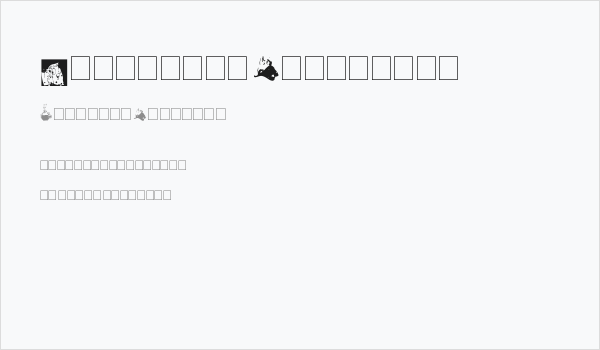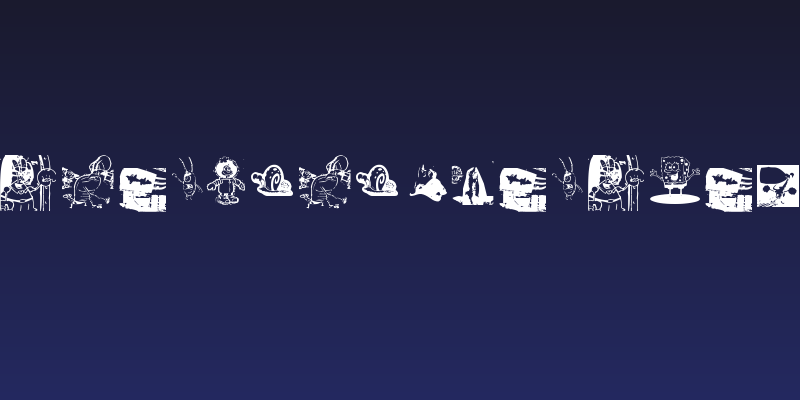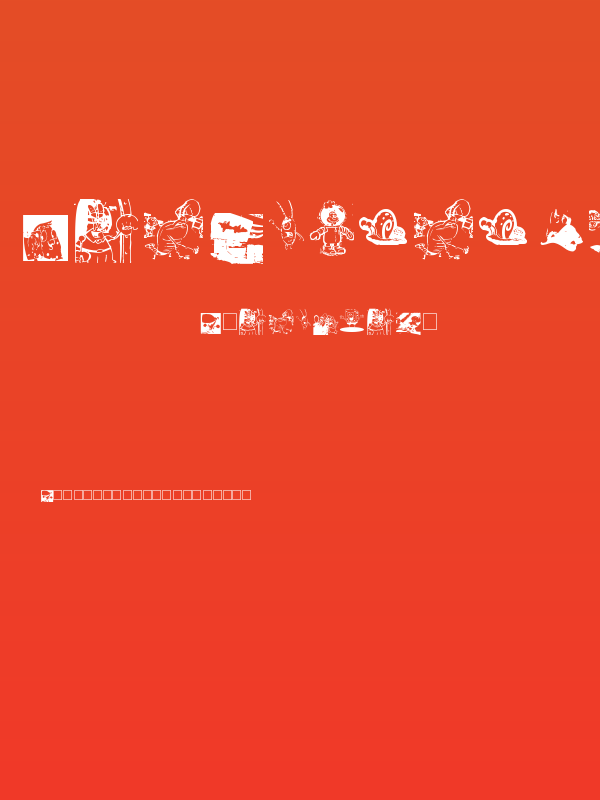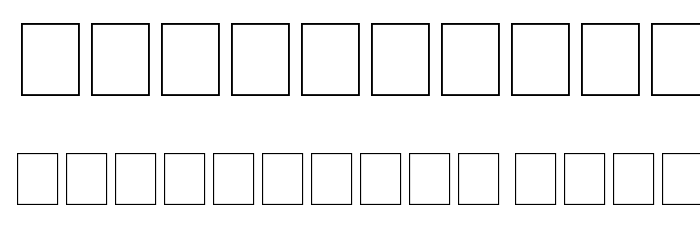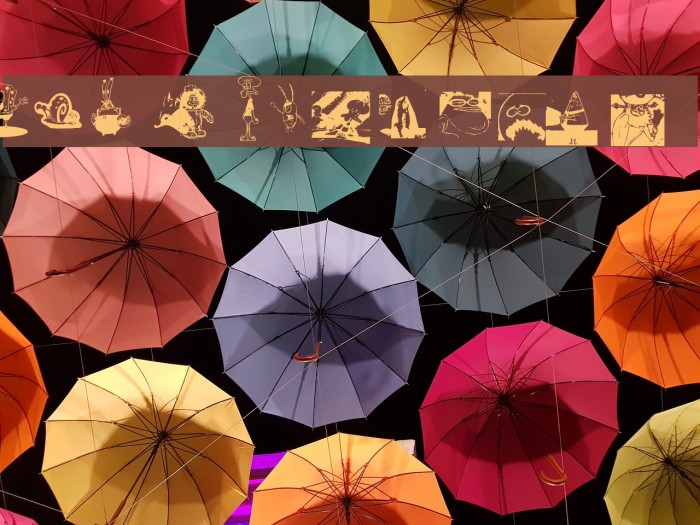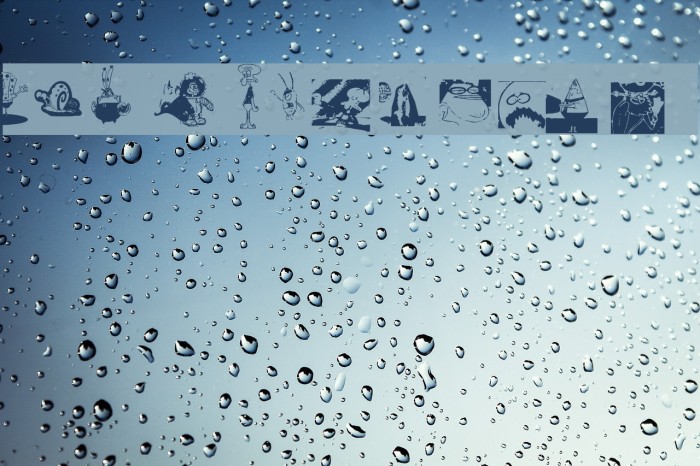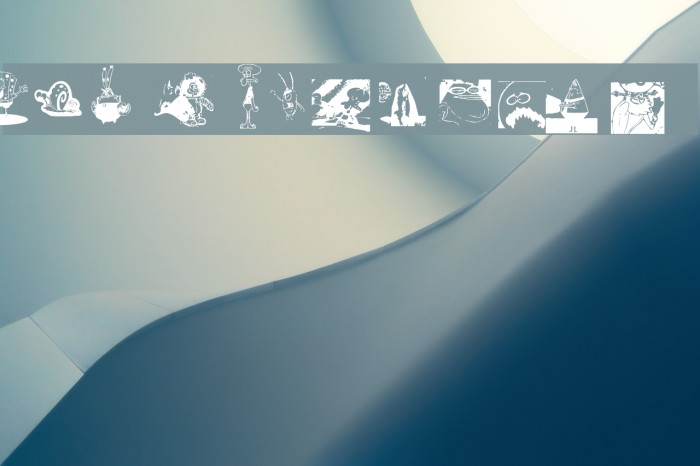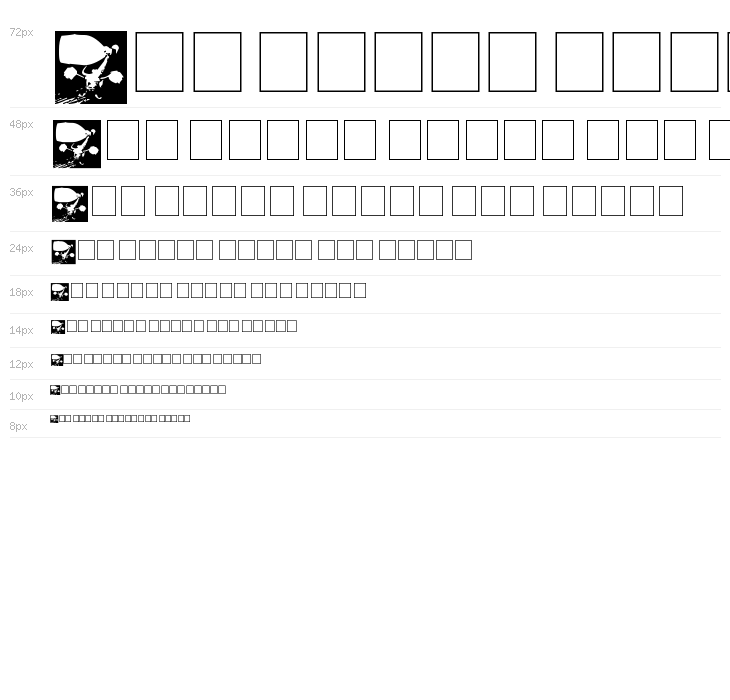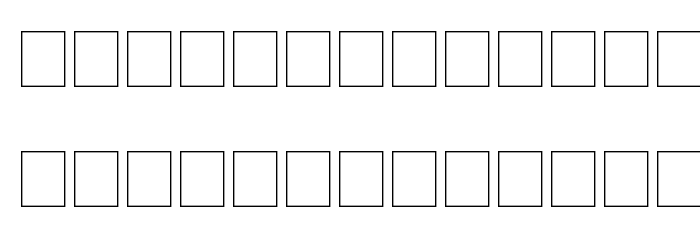
Spongebob Dingpants Font
Spongebob Dingpants Description
This is a playful and whimsical font that features characters from a popular animated series. Each letter is represented by a unique character or scene, adding a fun and lively touch to any design. The font is highly decorative and captures the essence of the show's humor and creativity. It is not a traditional font with standard letterforms but rather a collection of images that convey a sense of joy and nostalgia. This makes it ideal for projects that aim to evoke a sense of fun and playfulness.
| Use Case | Logos, Posters, Invitations |
| Proposed Projects | Ideal for children's party invitations, themed posters, or merchandise related to the animated series. |